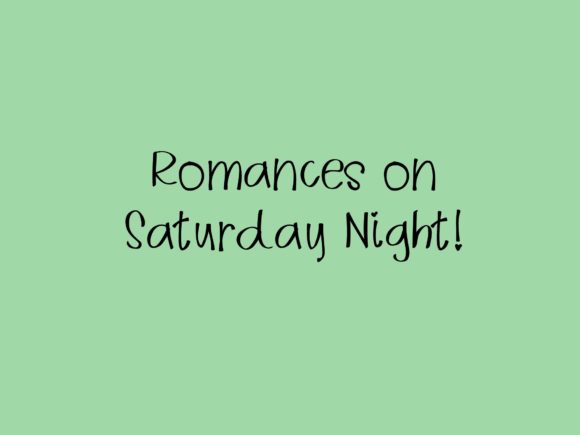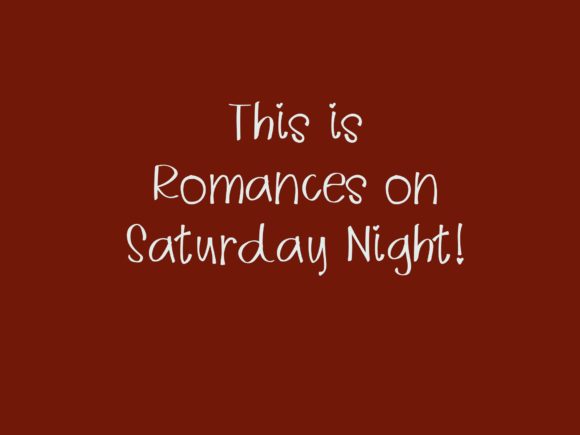
Romances on Saturday Night Font
About Romances on Saturday Night Font
Romances on Saturday Night is a cute and undeniably romantic script font that’s great for taking your design ideas to the next level.